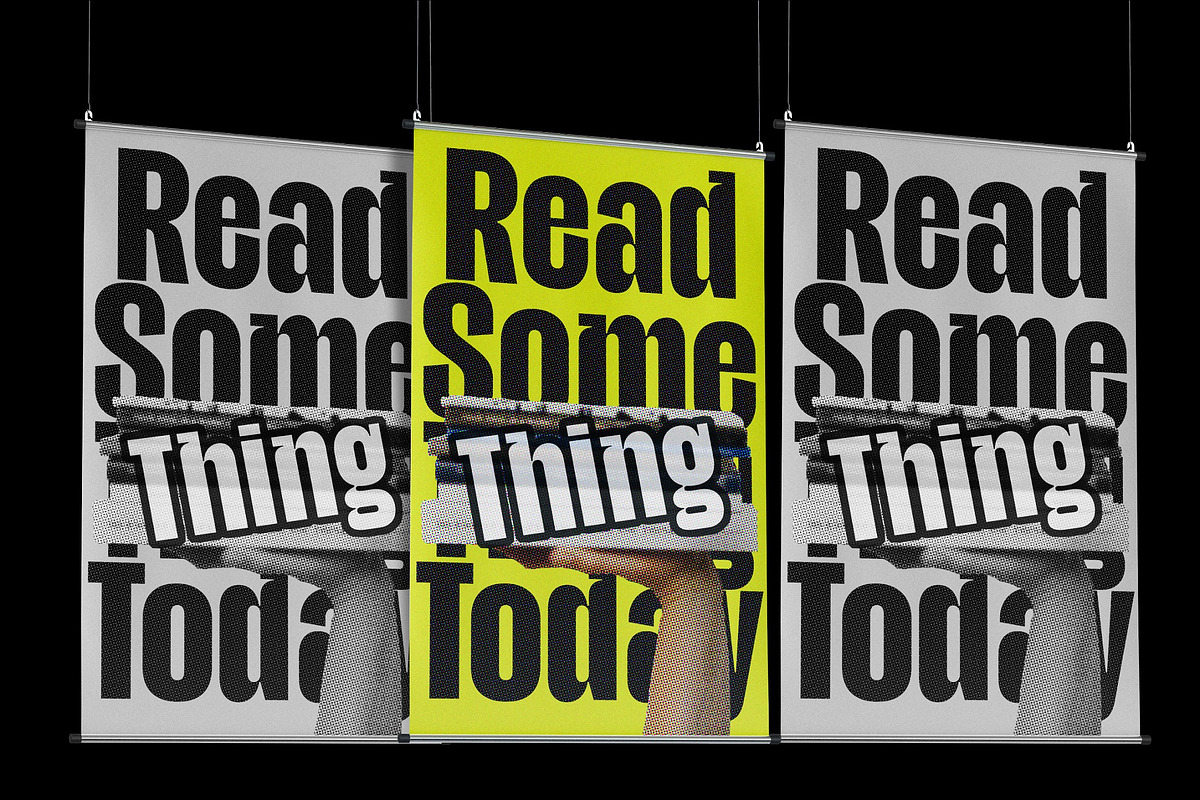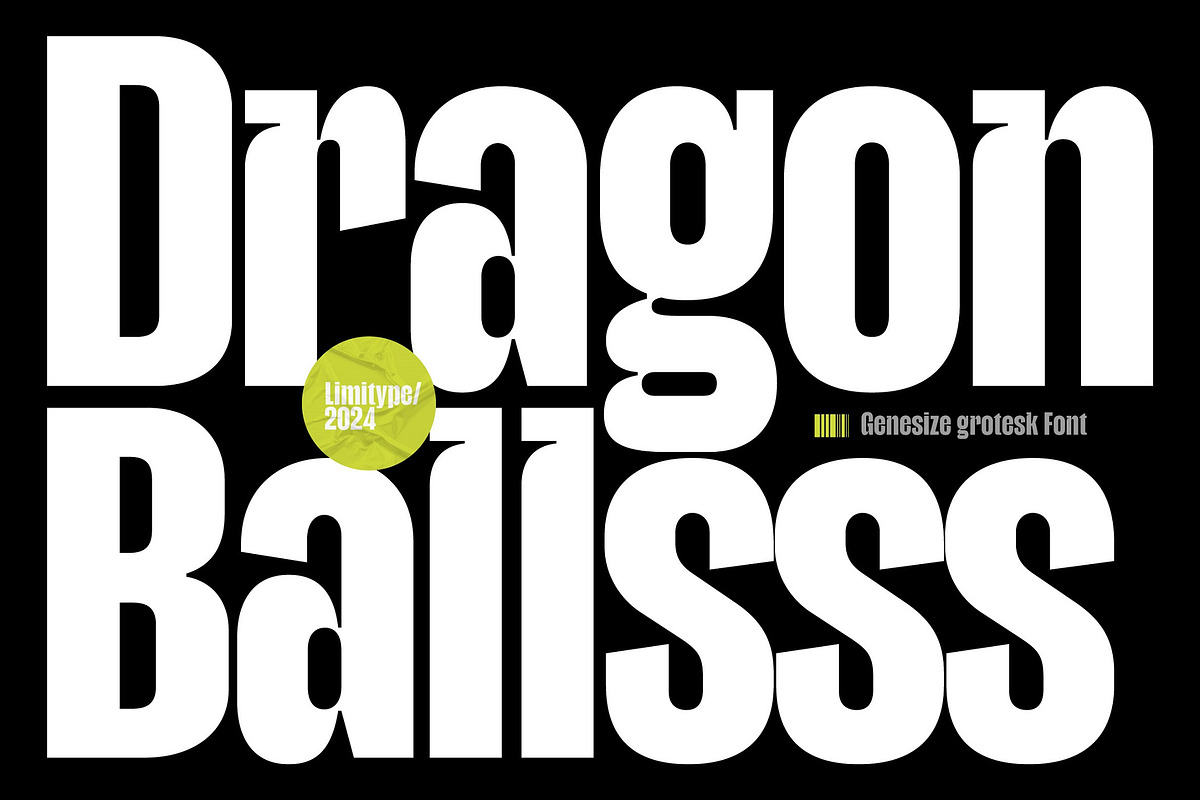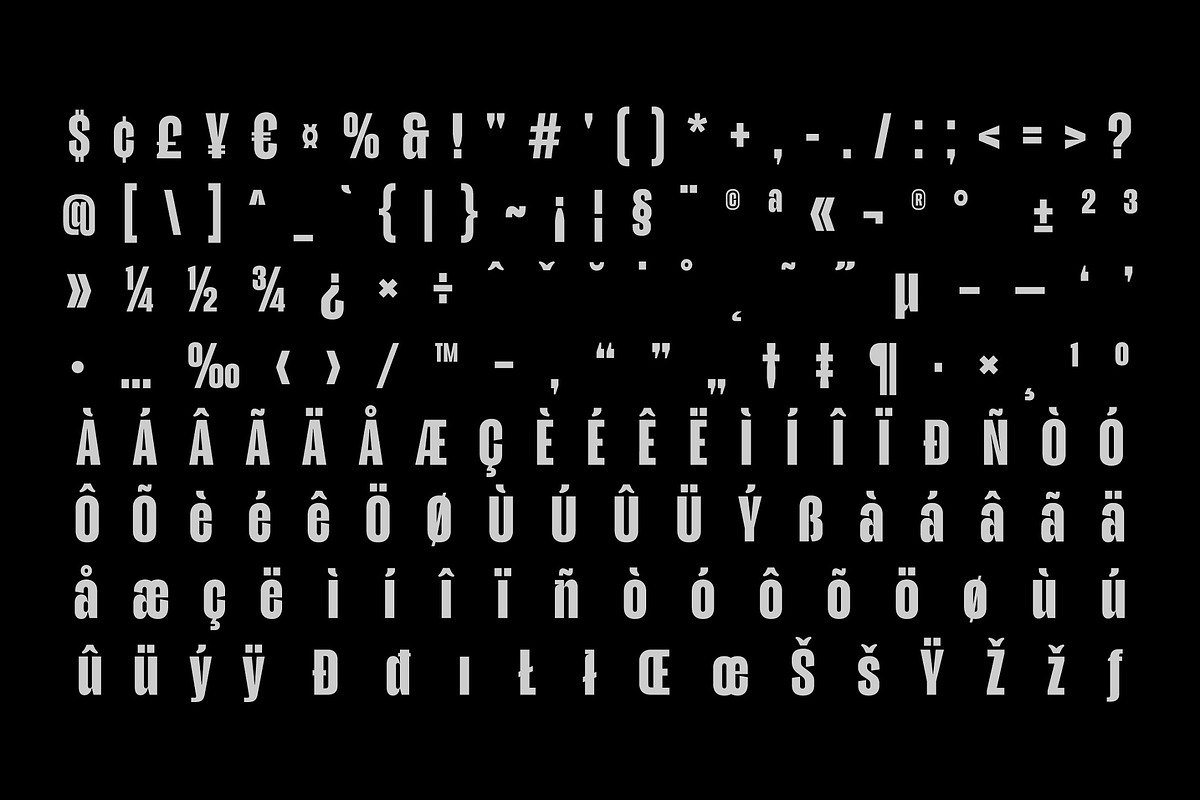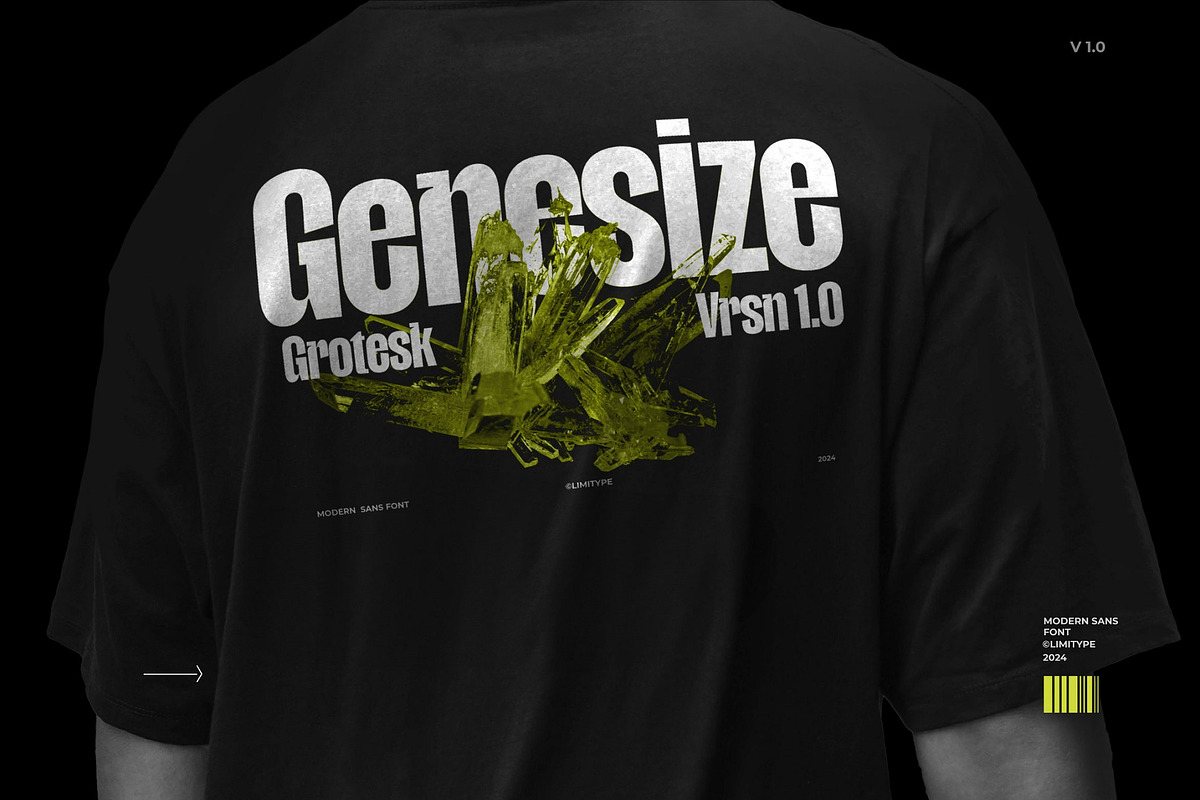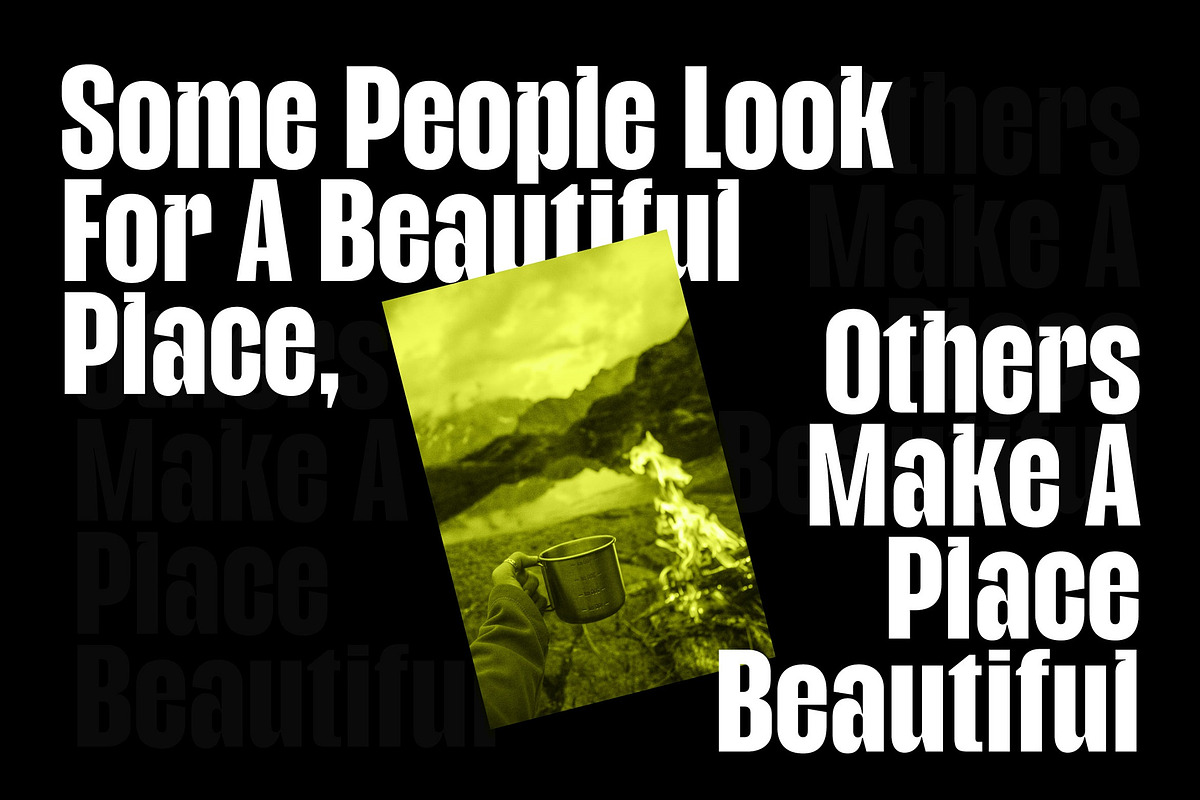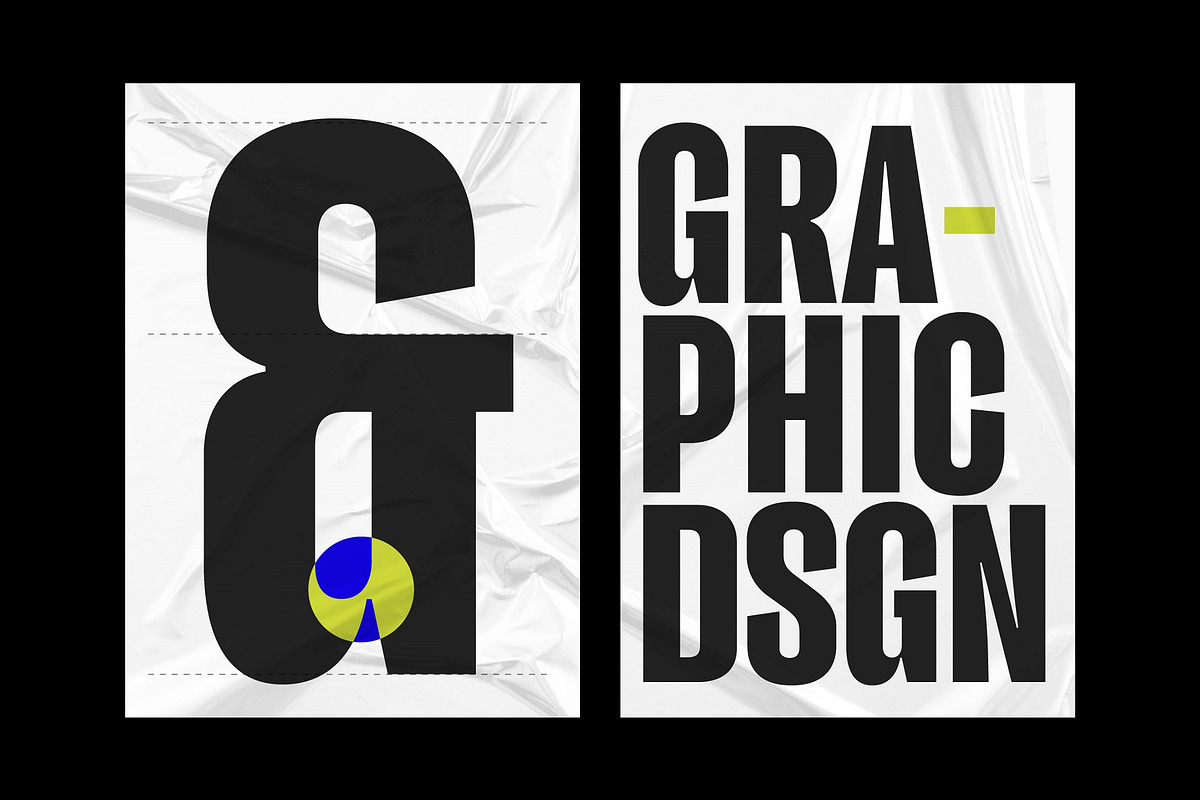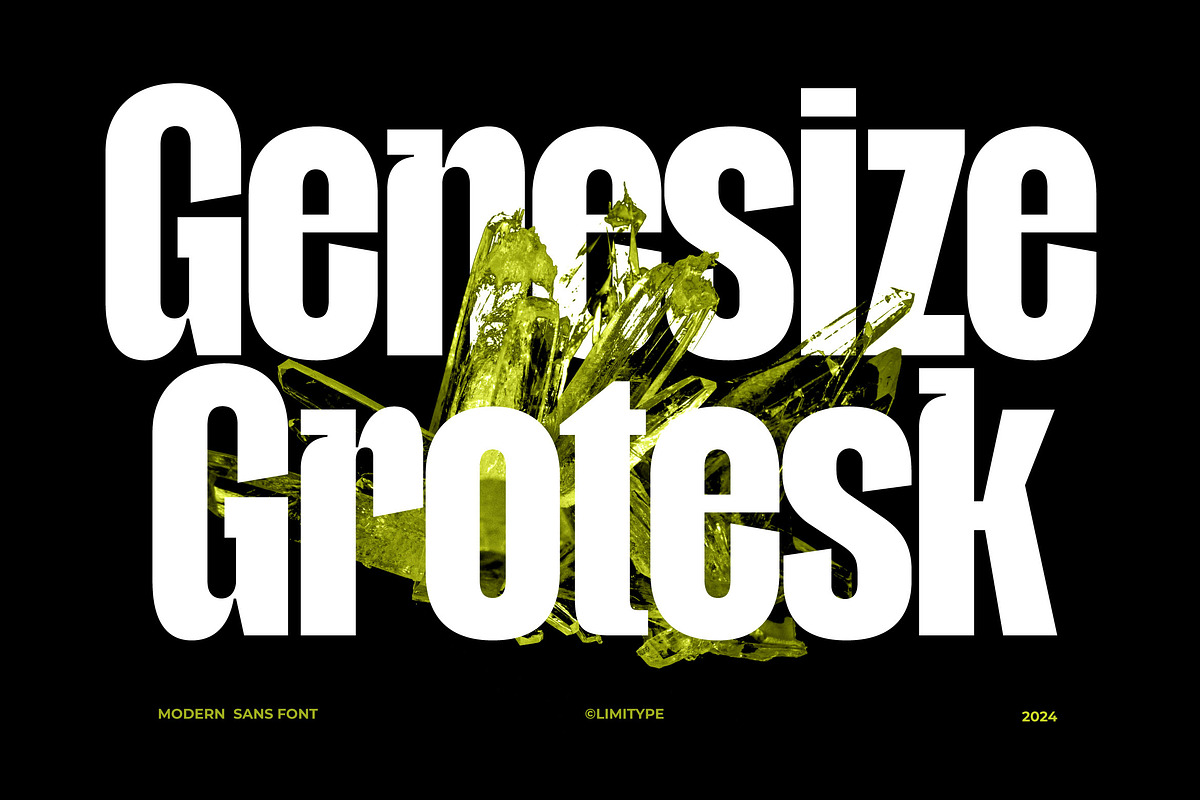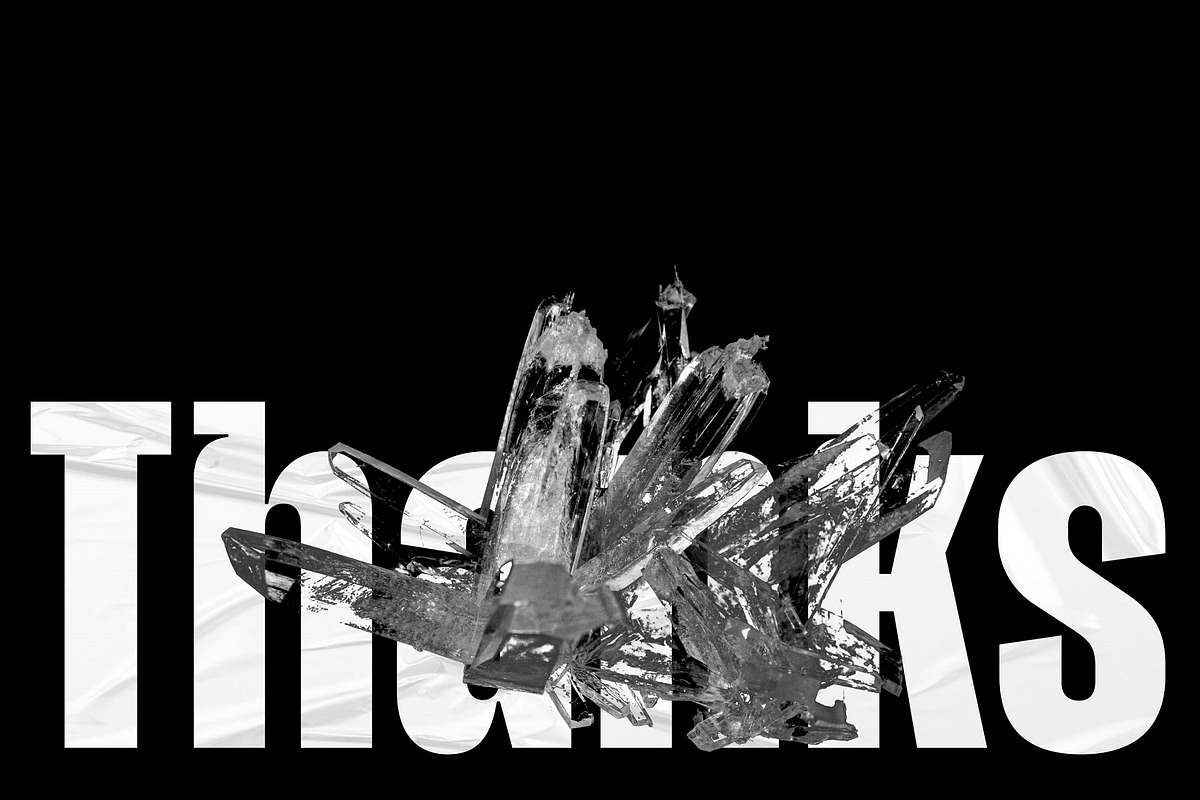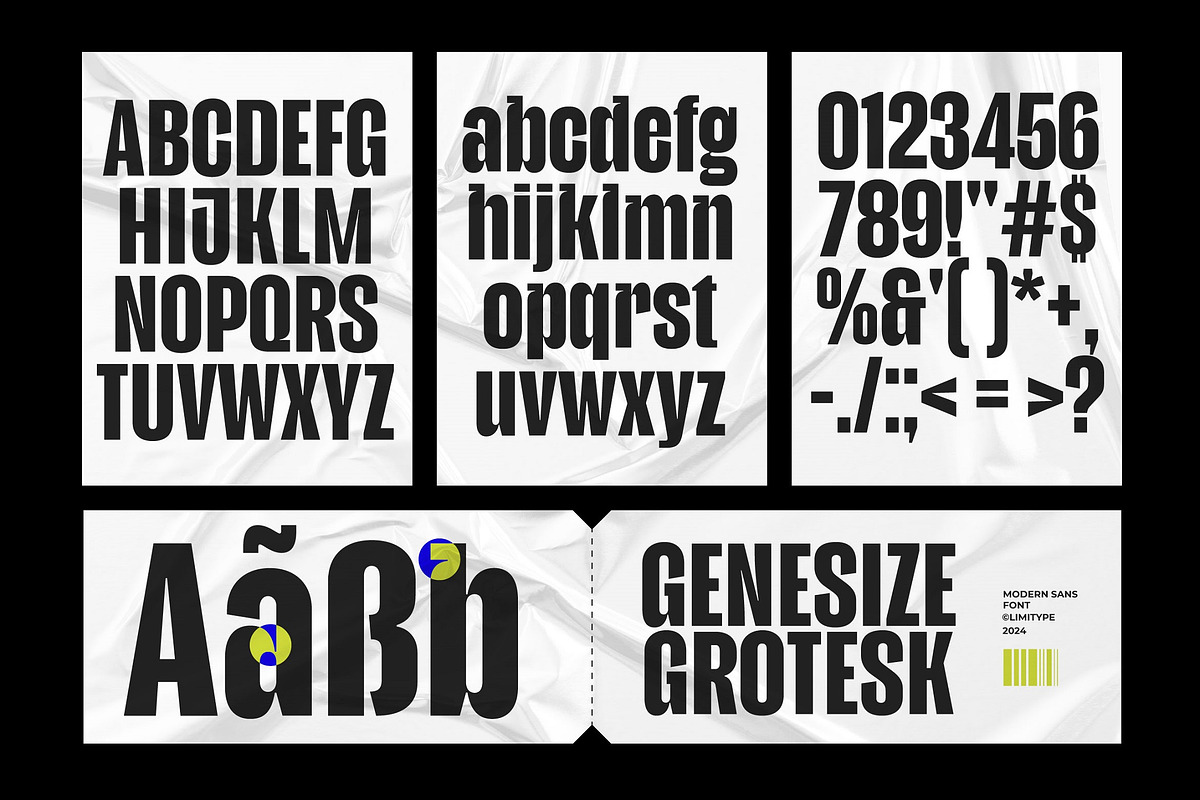
Genesize Grotesk - Condensed Font
Genesize grotesk is a modern sans display font with several unique stems and joins, with a condensed style this font is suitable for your design needs for displays, headlines, banners etc.
- And multilingual